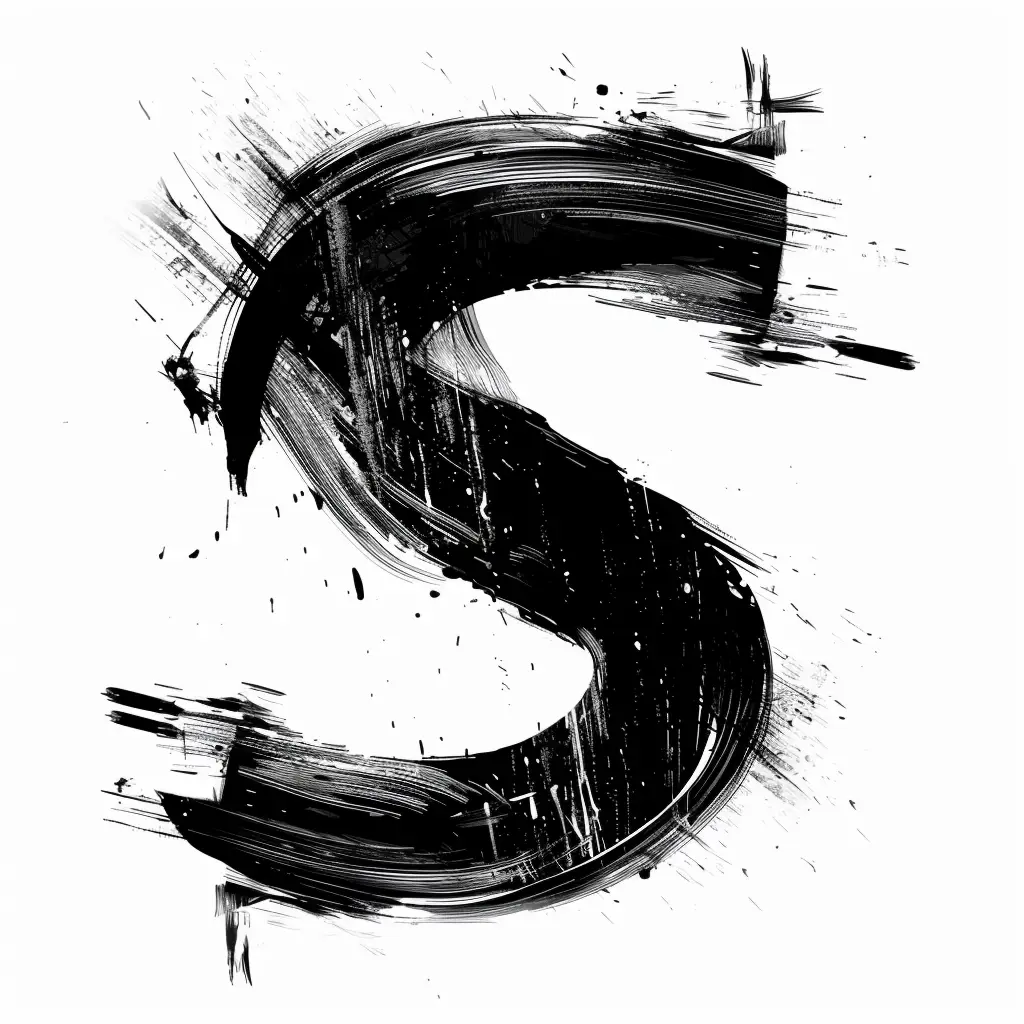
This image features a stylized, artistic representation of the letter "S" rendered in bold black brushstrokes against a white background. The design incorporates dynamic, textured brushwork with splatters, drips, and rough edges, giving it a raw, expressive, and slightly chaotic aesthetic. The high-contrast black-and-white color scheme emphasizes the letter’s form and the energetic, hand-painted style.